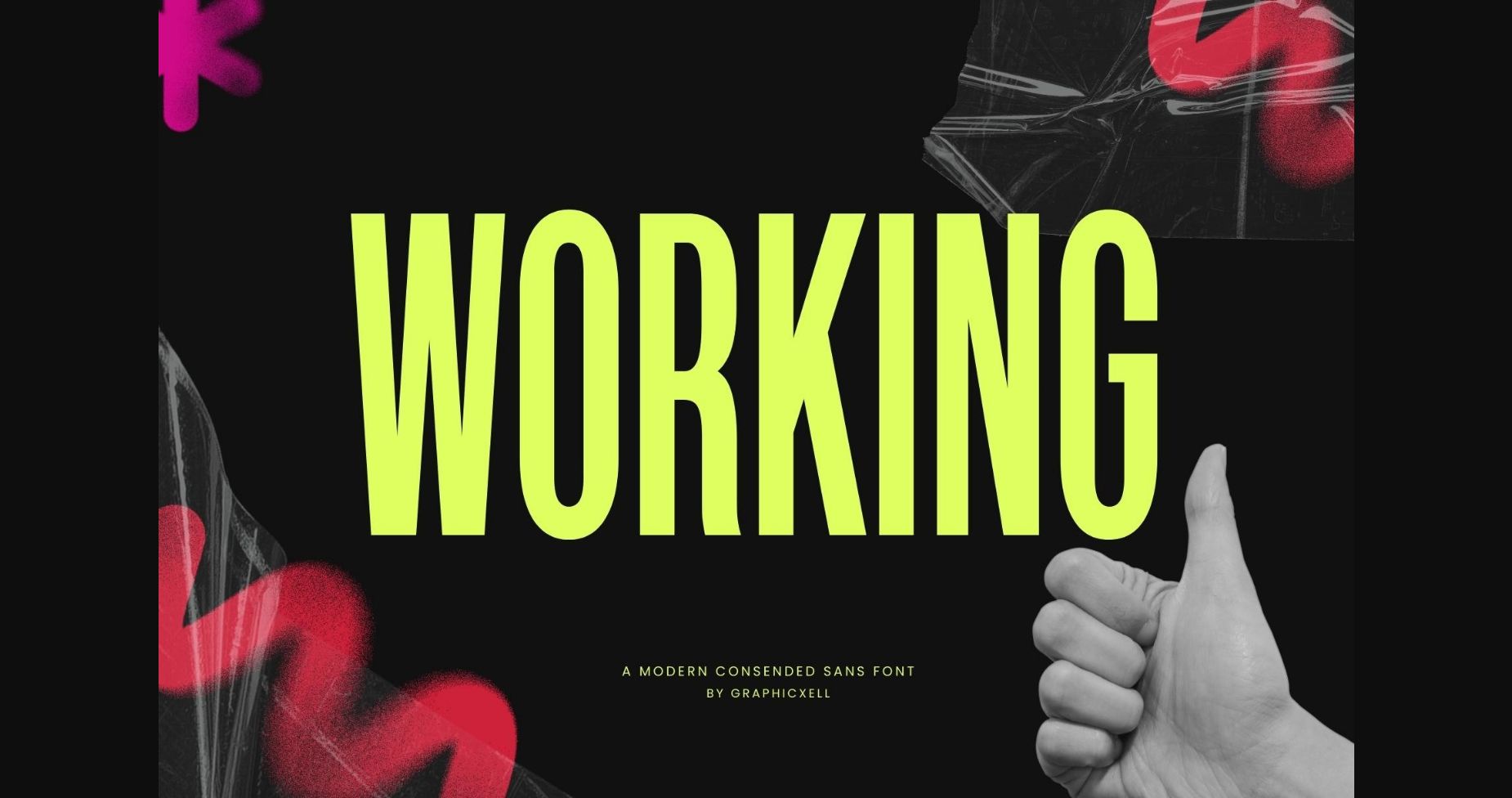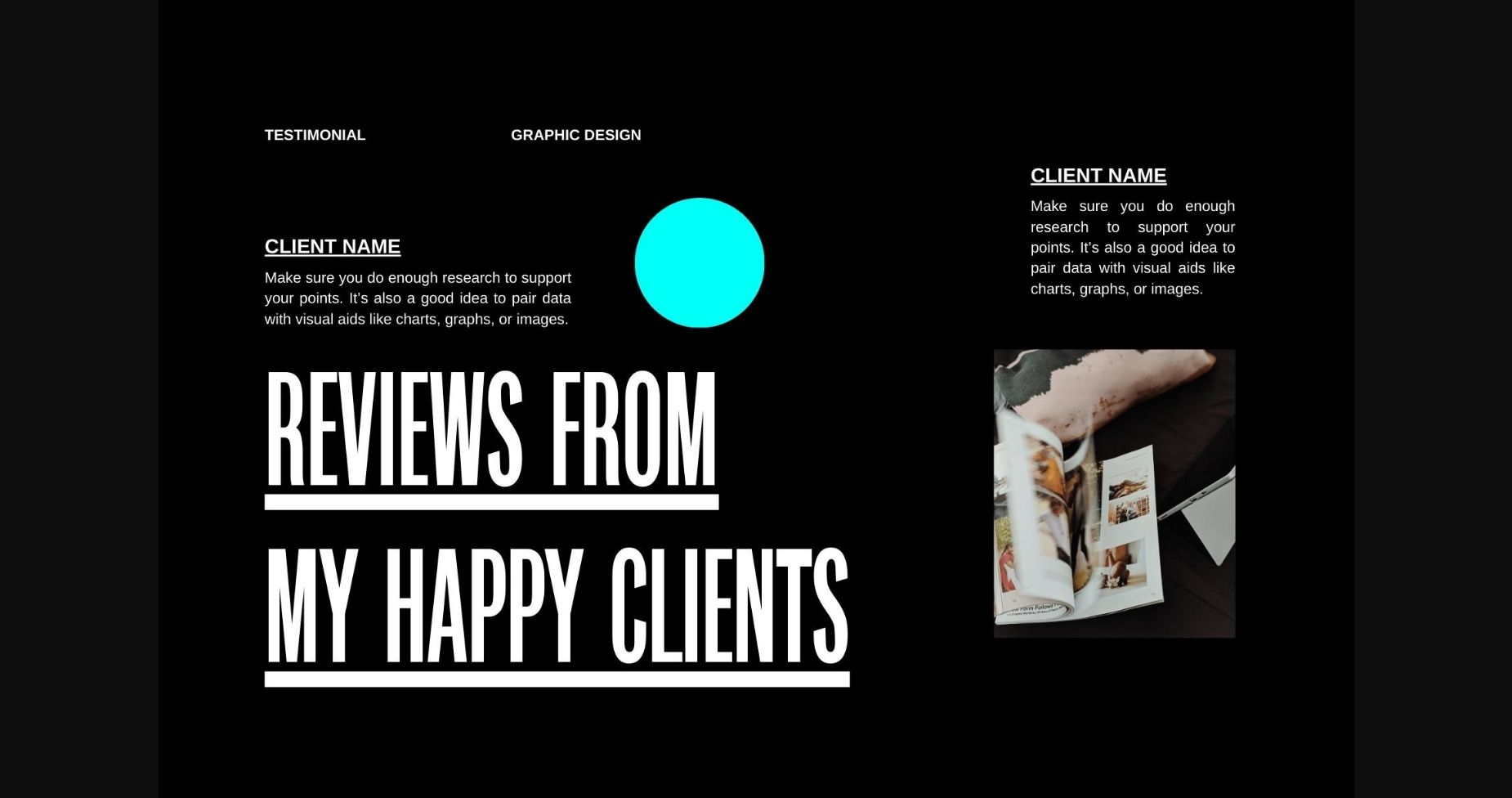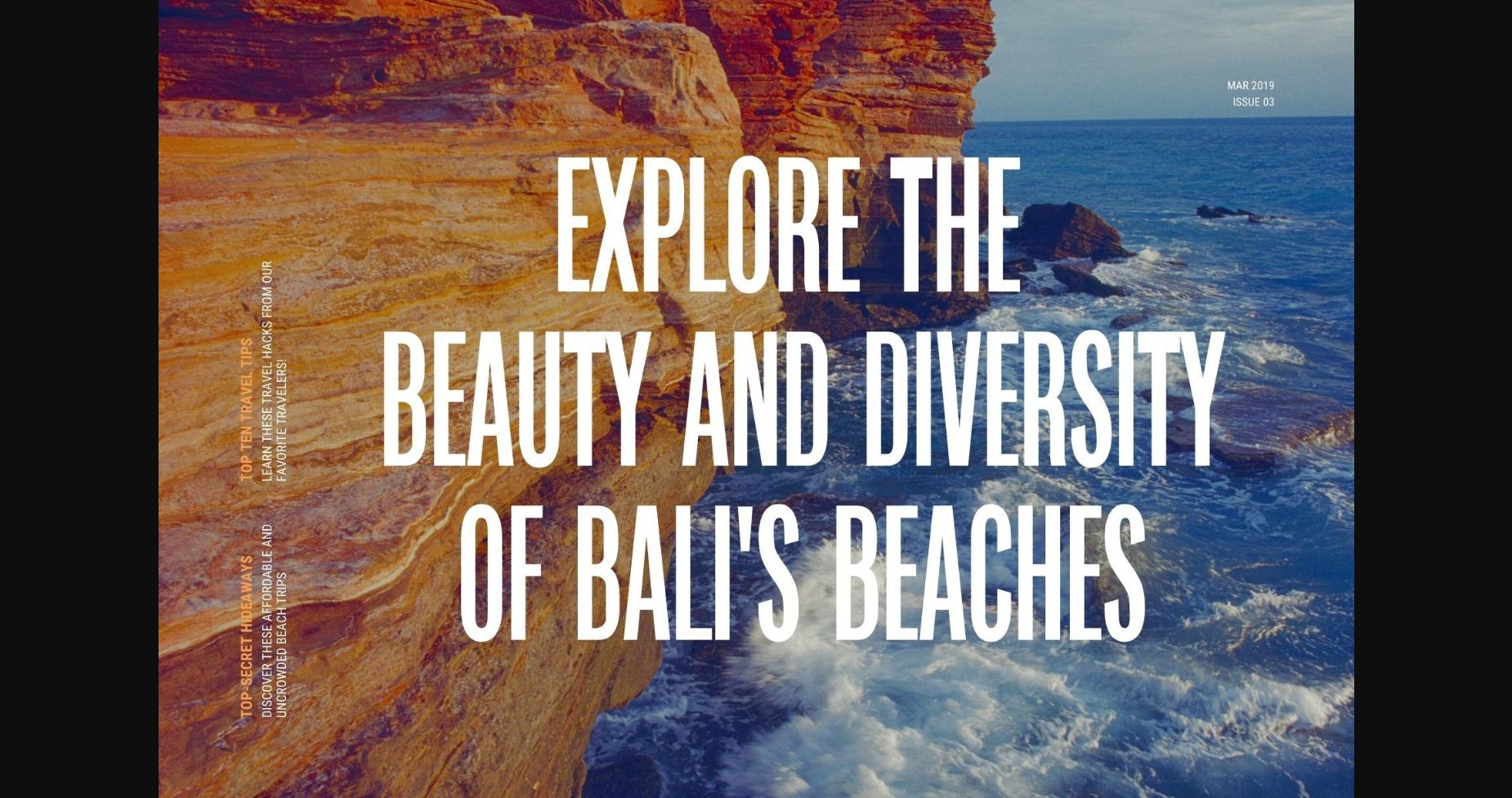
Working is a modern condensed sans serif font designed for versatility and legibility in various projects. Its sleek and compact letterforms make it ideal for headlines, titles, and body text that require a contemporary and space-saving aesthetic. With its balanced proportions and clear readability, Working delivers a professional and sophisticated look, making it a perfect choice for both digital and print designs.